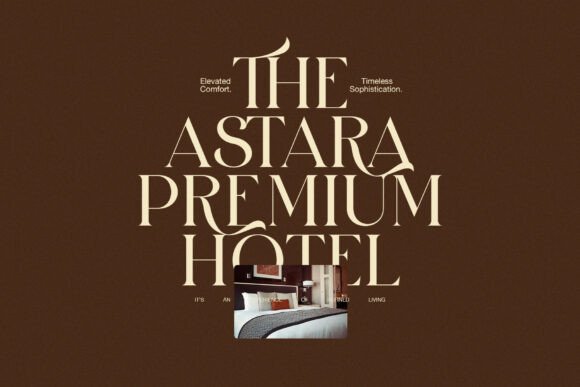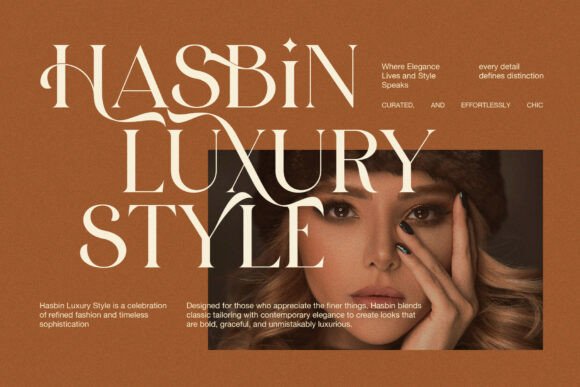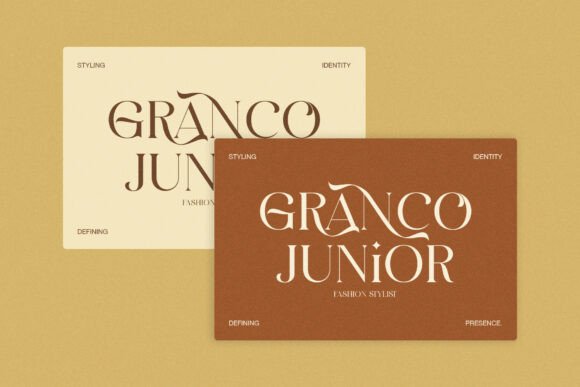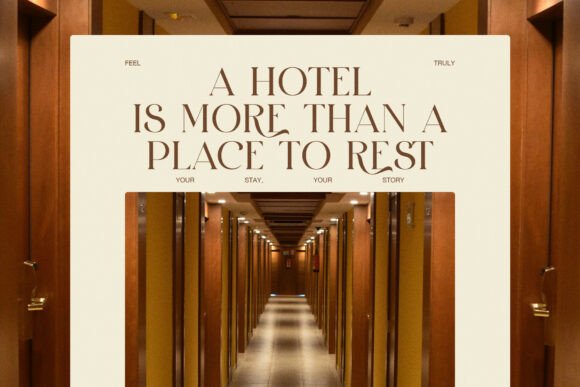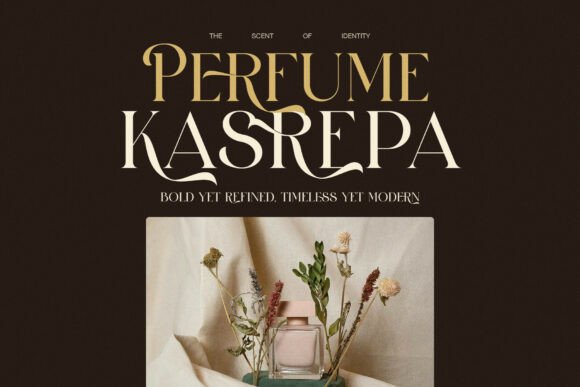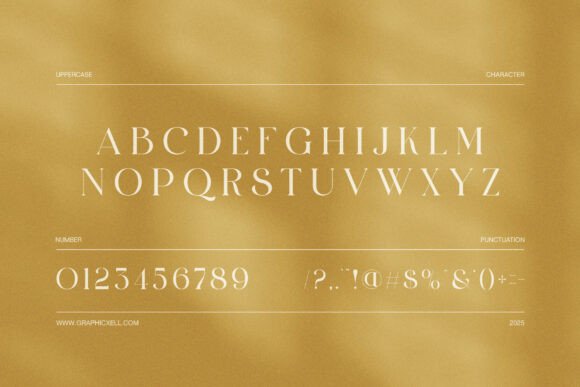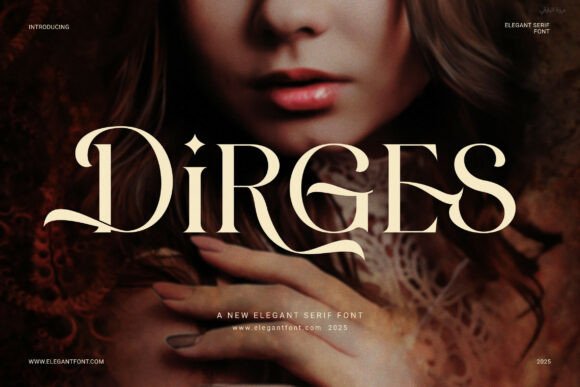
Introducing Dirges Font: Elevate Your Designs with Elegance and Sophistication
In the world of typography, the right font can make all the difference in transforming a design from ordinary to extraordinary. For designers and crafters seeking a stylish and modern serif typeface that exudes professionalism and refinement, look no further than Dirges Font. With its clean lines, upscale feel, and graceful curves, Dirges is the perfect choice for anyone looking to elevate their work and make a lasting impression.
The Characteristics of Dirges Font
Dirges Font is a meticulously crafted serif typeface that boasts a range of characteristics that set it apart from other fonts. Its most notable features include:
- Clean and Upscale Feel: Dirges has a sleek and sophisticated design that lends itself perfectly to high-end branding, editorials, and luxury packaging.
- Graceful Curves: The font’s elegant curves add a touch of refinement and poise to any design, making it ideal for projects that require a level of sophistication.
- Proportional Shape: Dirges’ carefully crafted proportions ensure that the font looks balanced and harmonious in every layout, making it easy to read and visually appealing.
- Functional Ligatures: The font’s ligatures allow the letters to flow naturally, creating a seamless and organic look that adds an extra layer of elegance to any design.
The Benefits of Using Dirges Font
So, what makes Dirges Font the go-to choice for designers and crafters? Here are just a few benefits of using this exceptional typeface:
- Professional and Refined: Dirges delivers results that feel both professional and refined, making it perfect for high-stakes projects where the quality of the design is paramount.
- Versatile: The font’s versatility means it can be used across a range of mediums, from digital platforms to print materials, without losing its impact or legibility.
- Easy to Read: Dirges’ clear and balanced design ensures that text is easy to read, even at smaller sizes, making it perfect for body copy and longer-form content.
- Customizable: With its range of ligatures and stylistic alternatives, Dirges offers a high degree of customization, allowing designers to tailor the font to their specific needs.
Applications of Dirges Font
So, what kinds of projects is Dirges Font best suited to? The answer is: a wide range! Here are just a few examples of applications where Dirges excels:
- Branding and Identity: Dirges is perfect for creating high-end brand identities, logos, and letterheads that exude professionalism and sophistication.
- Editorials and Magazines: The font’s elegant design and clear legibility make it an excellent choice for editorials, magazines, and newspapers.
- Luxury Packaging: Dirges is ideal for luxury packaging, product labels, and point-of-sale displays where a high-end look and feel are essential.
- Web Design: The font’s versatility and legibility make it perfect for web design, including website headers, body copy, and digital advertising.
| Font Name | Dirges Font |
| Author | ElegantFont |
In conclusion, Dirges Font is a stylish and modern serif typeface that offers a unique combination of elegance, sophistication, and versatility. With its clean lines, graceful curves, and functional ligatures, Dirges is the perfect choice for designers and crafters looking to elevate their work and create stunning designs that leave a lasting impression. Whether you’re working on a personal brand or a client project, Dirges Font is sure to deliver results that feel both professional and refined.